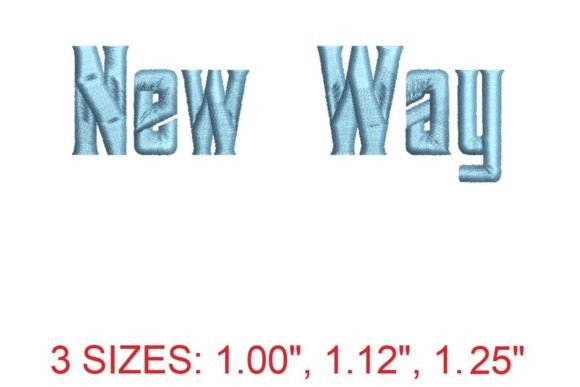
New Way Embroidery Font
The New Way Embroidery Font is a modern and stylish choice for anyone looking to elevate their embroidery projects. Whether you're a hobbyist, designer, or business owner, this font offers a fresh and contemporary look that stands out in both personal and professional settings.
A Modern Design for Contemporary Projects
The New Way Embroidery Font features sleek lines and distinct letterforms that give it a unique visual identity. Its clean and minimalist design makes it versatile enough to work with a wide range of embroidery applications. From monograms to custom names, this font adds a touch of sophistication and innovation to any stitched piece.
One of the standout qualities of the New Way Embroidery Font is its adaptability. The font's structured yet artistic style allows it to blend seamlessly with both traditional and modern embroidery techniques. This makes it an excellent choice for those who want to experiment with different styles without compromising on quality or clarity.
Why Choose New Way Embroidery Font?
Practical Applications Across Multiple Environments
The New Way Embroidery Font is not limited to just personal projects. Its versatility makes it a valuable tool in a variety of settings, including education, marketing, and digital content creation.
In educational environments, the font can be used to create visually engaging materials such as name tags, classroom displays, or student projects. For marketers and entrepreneurs, it provides an opportunity to craft branded merchandise, logos, and promotional items that make a lasting impression.
Creative professionals and hobbyists will appreciate how the New Way Embroidery Font enhances their work. Whether it's for custom clothing, home décor, or gift items, the font adds a level of sophistication that elevates the final product. Additionally, its compatibility with digital platforms allows for easy integration into online stores, social media, and other digital marketing strategies.
Real-World Examples and Use Cases
Consider a local boutique that wants to offer personalized embroidered items. Using the New Way Embroidery Font, they can create custom monogrammed products that appeal to customers seeking unique and stylish options. Similarly, a blogger might use the font to embroider their logo onto notebooks or apparel, reinforcing their brand identity in a tangible way.
For educators, the font can be used to create classroom labels, student name tags, or interactive learning materials. Its clean and modern design ensures readability while adding a touch of creativity to everyday items.
Business owners looking to expand their product line can benefit from the font's adaptability. It can be used to create embroidered signs, banners, or promotional materials that align with their brand's aesthetic and messaging.
Key Considerations When Using New Way Embroidery Font
Before incorporating the New Way Embroidery Font into your projects, it's important to consider a few practical aspects:
Machine Compatibility: The font is designed to work with various embroidery machines, but it's always a good idea to test it with your specific model before committing to a large-scale project. This helps avoid potential issues related to machine limitations or stitch density.
Design Integration: When using the New Way Embroidery Font, consider how it fits into your overall design. Its modern aesthetic pairs well with both minimalist and bold styles, making it a flexible option for different creative visions.
Conclusion: Elevate Your Embroidery with Confidence
The New Way Embroidery Font is more than just a design—it's a tool that empowers creators to express themselves with confidence and innovation. Whether you're working on a personal project or a commercial venture, this font offers the versatility, quality, and style needed to make a lasting impact.